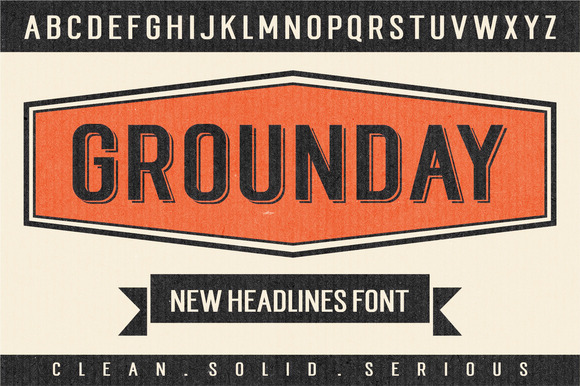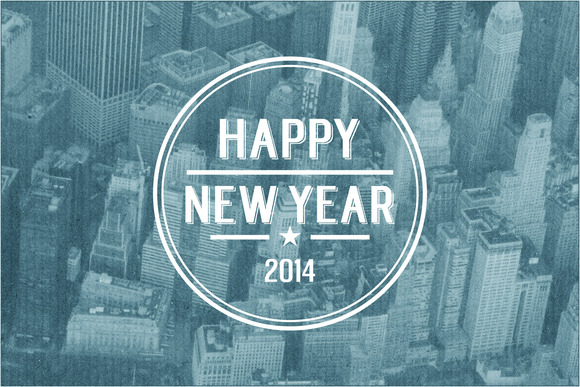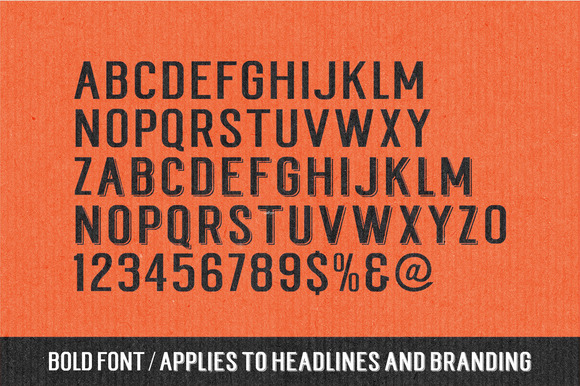
Grounday Font
About the Grounday Font
Presenting Grounday Font, a unique and stylish typeface that will make your work stand out. Grounday is a highly legible sans typeface and a bold compressed sans typeface, in uppercase characters only. The solid version is accessed by typing with the uppercase keys, while the alternative shadowed version is accessed with the lowercase. It can be used for various purposes such as headings, logos, invitations, t-shirt designs, greeting cards, posters, labels, book covers, brochures, and much more!
Grounday’s bold, compressed style excels in headlines, logos, and short impactful displays. Its uppercase-only nature makes it ideal for branding applications requiring strong visual presence, such as posters or packaging where concise messaging is key. However, avoid using it for body text or long paragraphs; its condensed form sacrifices readability at smaller sizes.
The font’s inherent strength is best complemented by pairing it with lighter, more delicate typefaces. Consider a classic serif like Garamond for a sophisticated contrast, or a clean geometric sans-serif such as Futura for a modern feel. A script font could add a touch of elegance for invitations or branding related to luxury goods.
Grounday projects a confident, modern personality, suitable for brands aiming for a bold and assertive image. Its versatility allows application across various media, but careful consideration of its limitations ensures optimal impact.
Grounday Font Usage Examples
Grounday Font Example